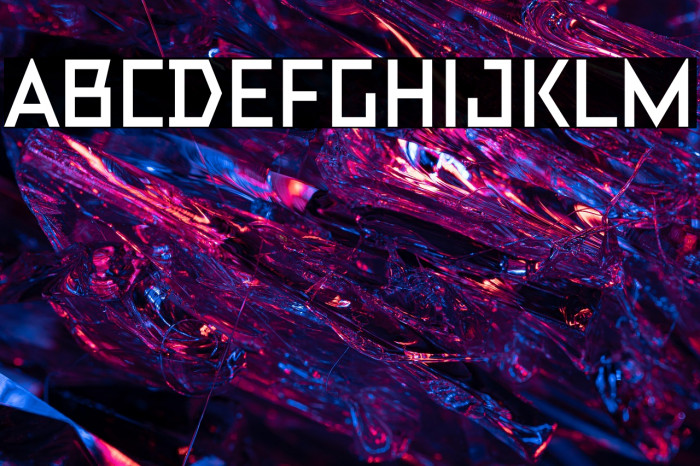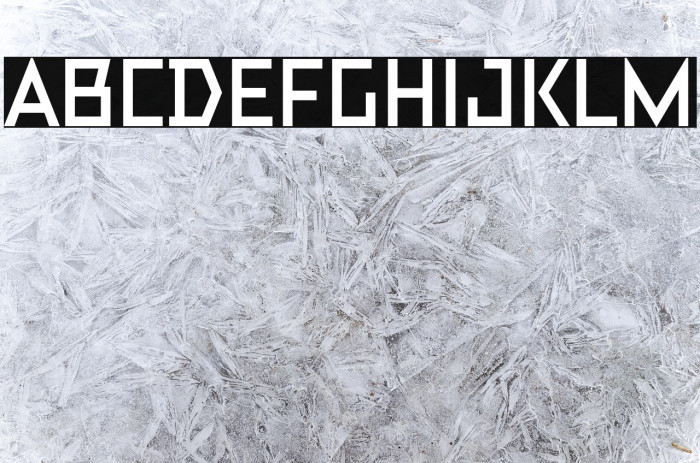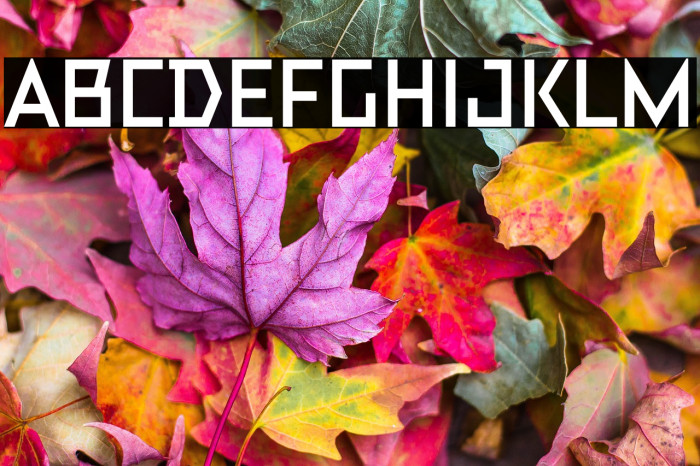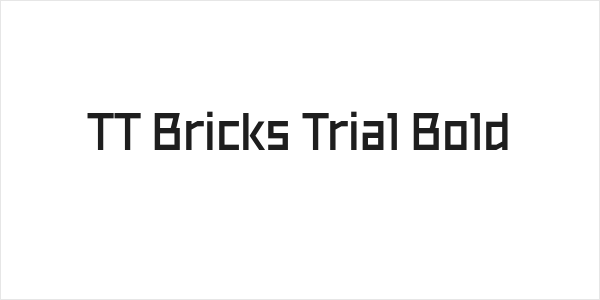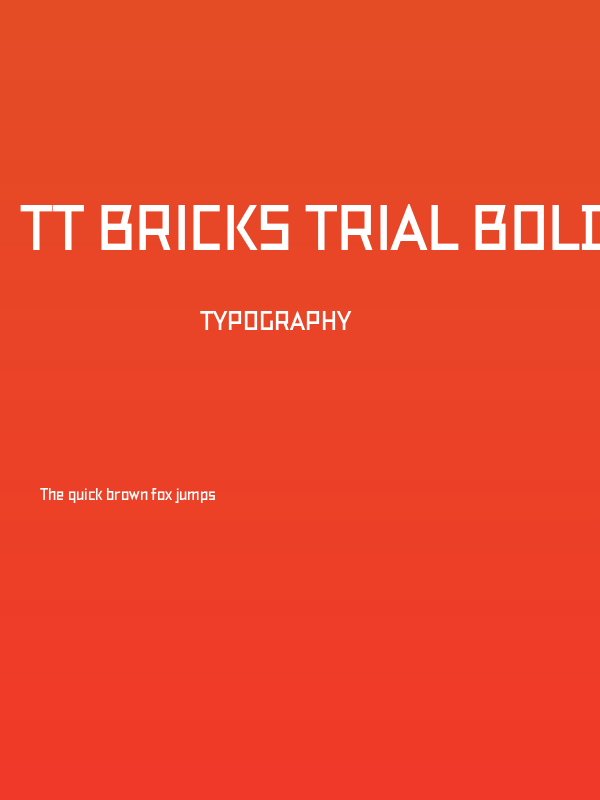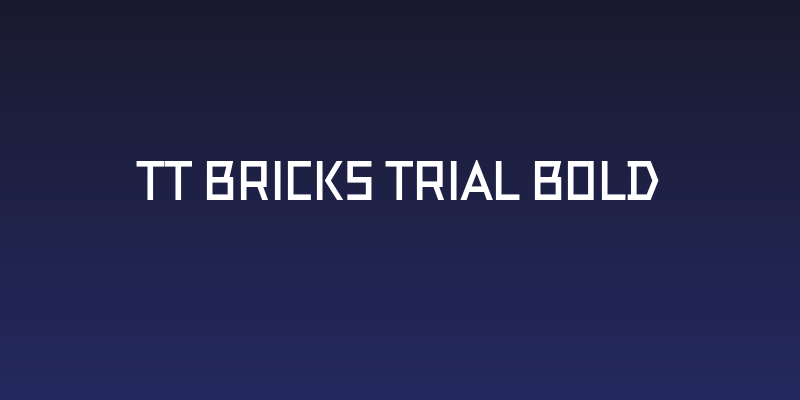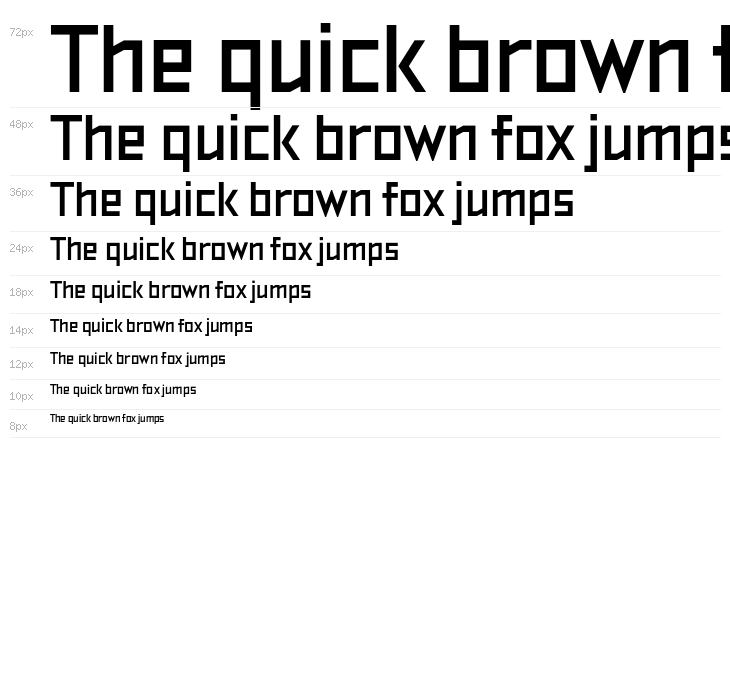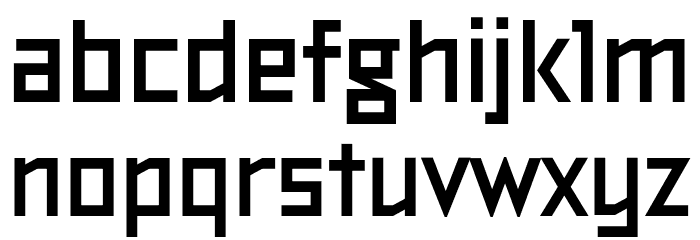
TT Bricks Trial Bold Font
TT Bricks Trial Bold Description
This font features a bold, geometric design with a modern and structured appearance. The characters are constructed with sharp angles and straight lines, giving it a blocky and robust look. The uppercase and lowercase letters maintain a consistent style, emphasizing clarity and readability. The numerals and special characters are designed to match the overall aesthetic, ensuring uniformity across all glyphs. This font's boldness and distinct style make it suitable for impactful and attention-grabbing designs.
| Proposed Projects | Ideal for branding, posters, headlines, and digital interfaces where a strong visual impact is needed. |